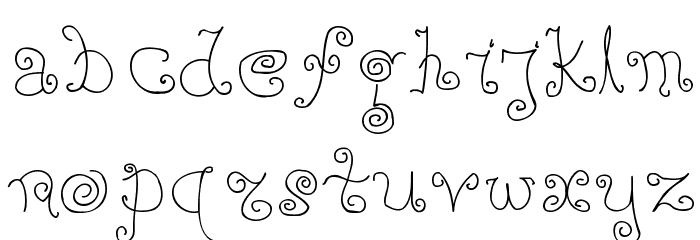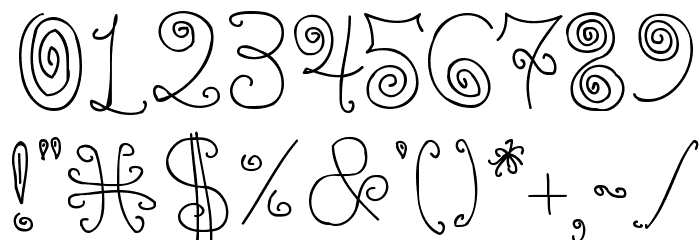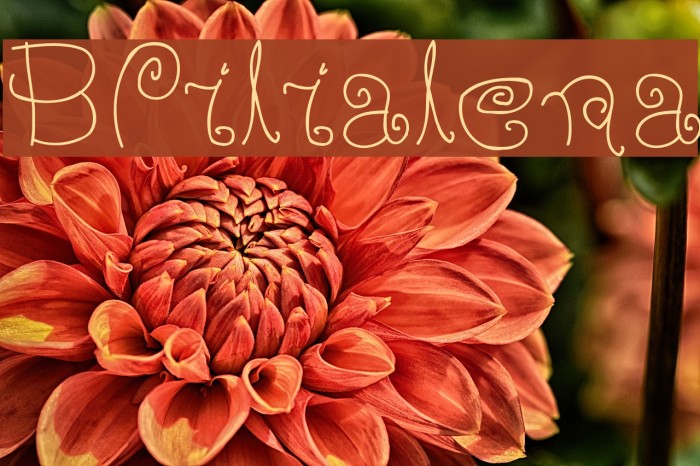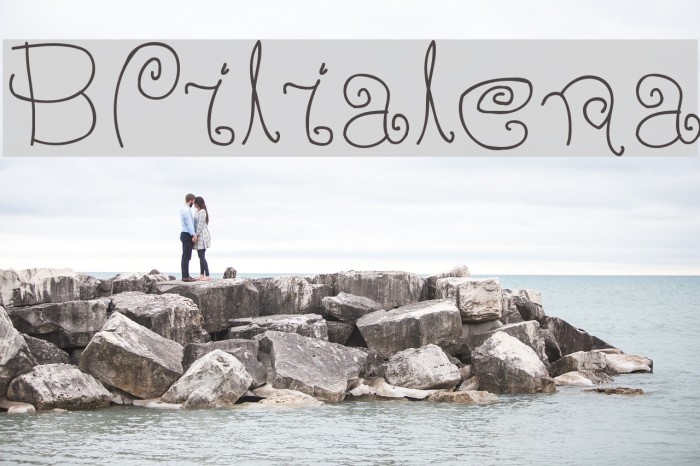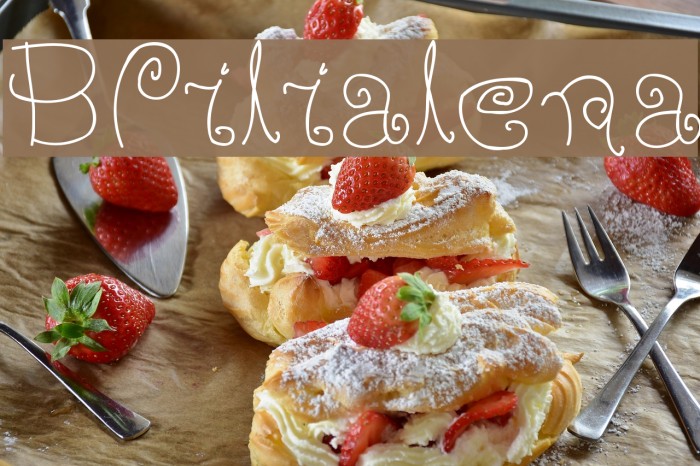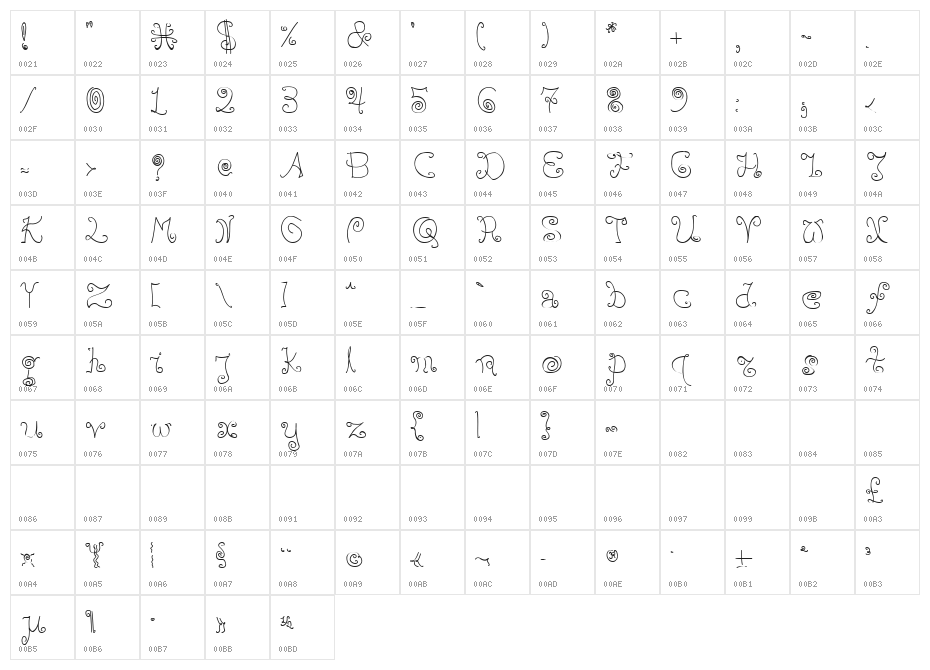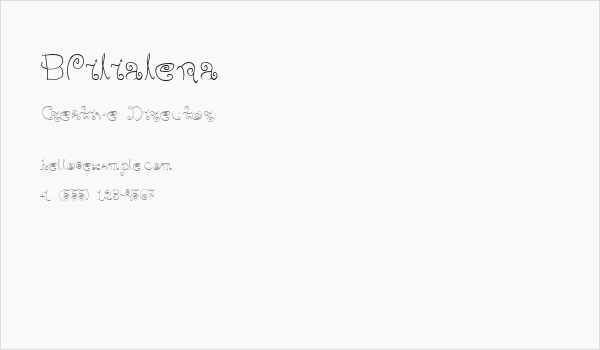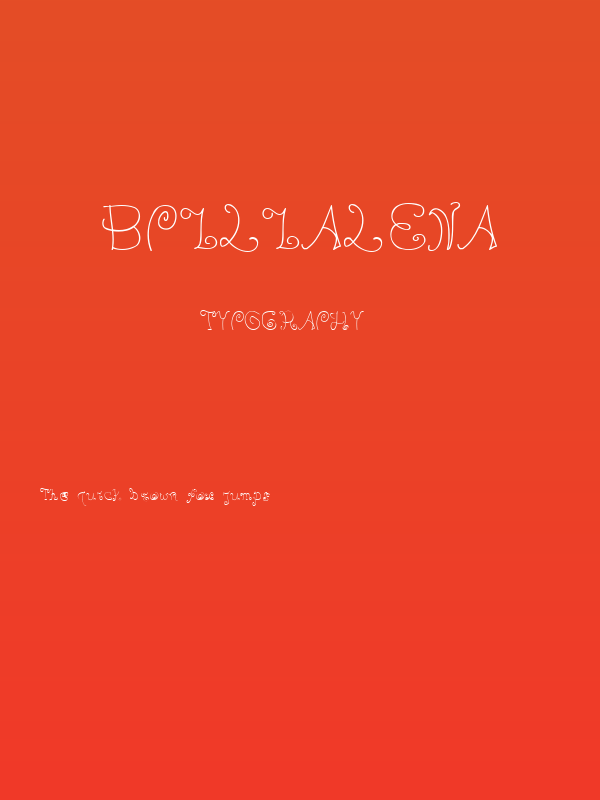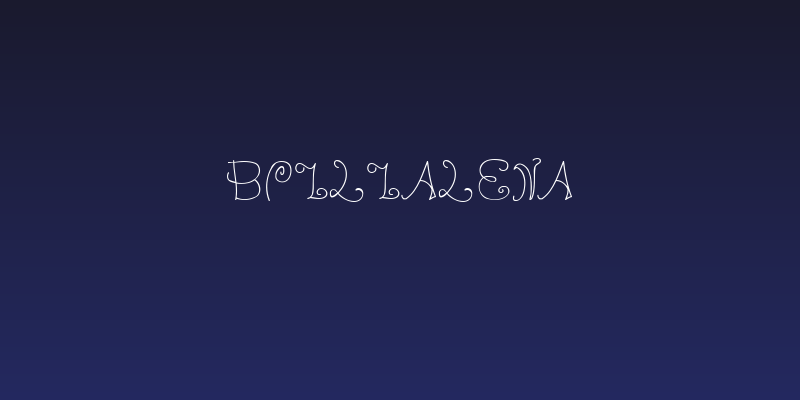
BPilialena Font
This font features a whimsical and playful design, characterized by its curly and swirly strokes. Each letter and number is adorned with unique loops and curls, giving it a hand-drawn, artistic feel. The uppercase and lowercase letters maintain a consistent style, with exaggerated curves and flourishes that add a sense of movement and creativity. The numbers follow the same playful theme, with spirals and loops that make them stand out. Special characters are equally ornate, with intricate designs that complement the overall aesthetic. This font is ideal for projects that require a touch of whimsy and creativity, such as children's books, playful branding, or artistic invitations.
A whimsical, curly font with playful loops and swirls.
- Proposed Projects: Ideal for children's books, playful branding, artistic invitations, and creative posters.
- Use Case: Logos, Headlines, Artistic projects